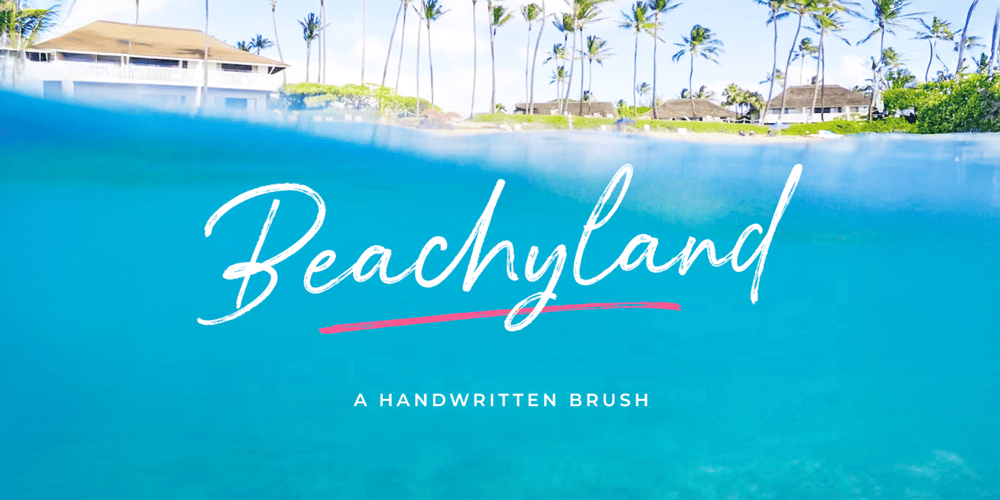
Beachyland
Beachyland font
Beachyland Font Family was designed by Dani Irawan and published by GraphTypika. Beachyland contains 1 styles and family package options. A handwritten brush font that adds a touch of casual elegance to your creative projectsThis font is versatile and compatible across various platforms, thanks to the inclusion of alternate characters. It offers multilingual support and brings a unique, handcrafted charm to your text.Beachyland is the game-changer you need to upgrade your design skills. Its effortless style and complete file package are perfect for branding, invitations, and social media graphics. With Beachyland, you can add a unique handwritten allure to your typography, making your words stand out with confidence and style.Get ready to take your design game to the next level with Beachyland and be confident that your creations will stand out.